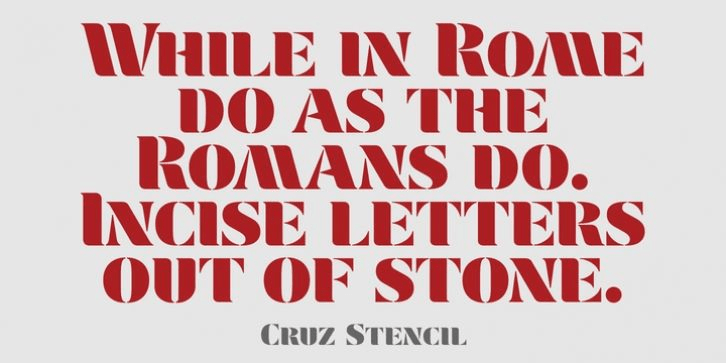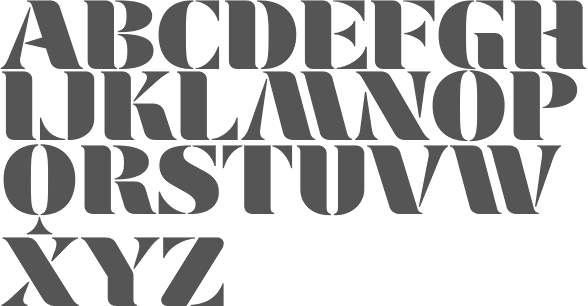
Cruz Stencil
Font Family by Cruz Fonts
Cruz Stencil is a serif display font with a stencil treatment that gives it a bold, graphic presence. The letterforms feel structured and ornamental at the same time, making it a strong choice when you want typography that reads clearly but still brings a distinctive special-effect look.
Offered as a single style from Cruz Fonts, this face is well suited to display work where character matters most—think posters, branding, packaging, signage, and other headline-driven layouts. Its cutout details add visual texture without losing the classic foundation of a serif design, giving your work a look that feels both decorative and disciplined.